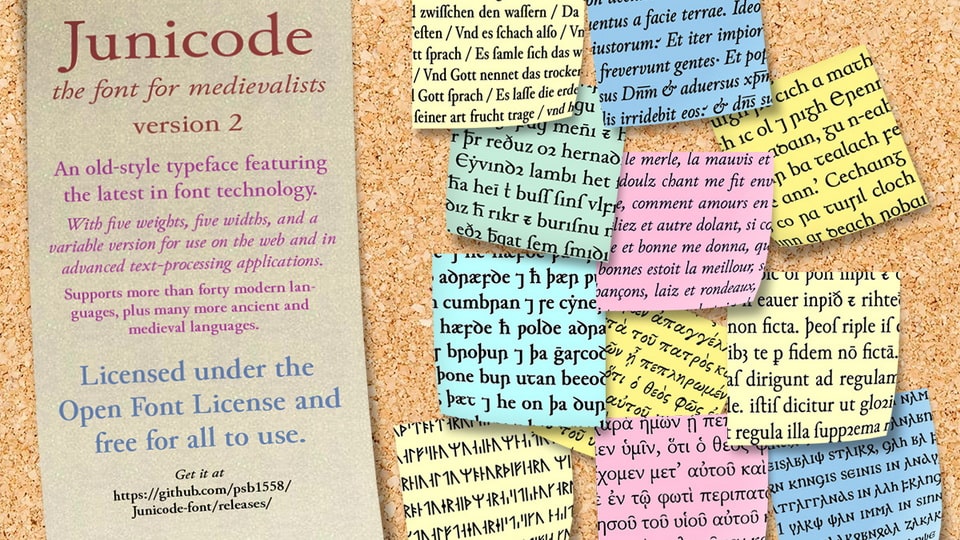
Download Junicode font, a radically rebuilt version of the widely used free font for medievalists, linguists, and specialists in many academic disciplines.